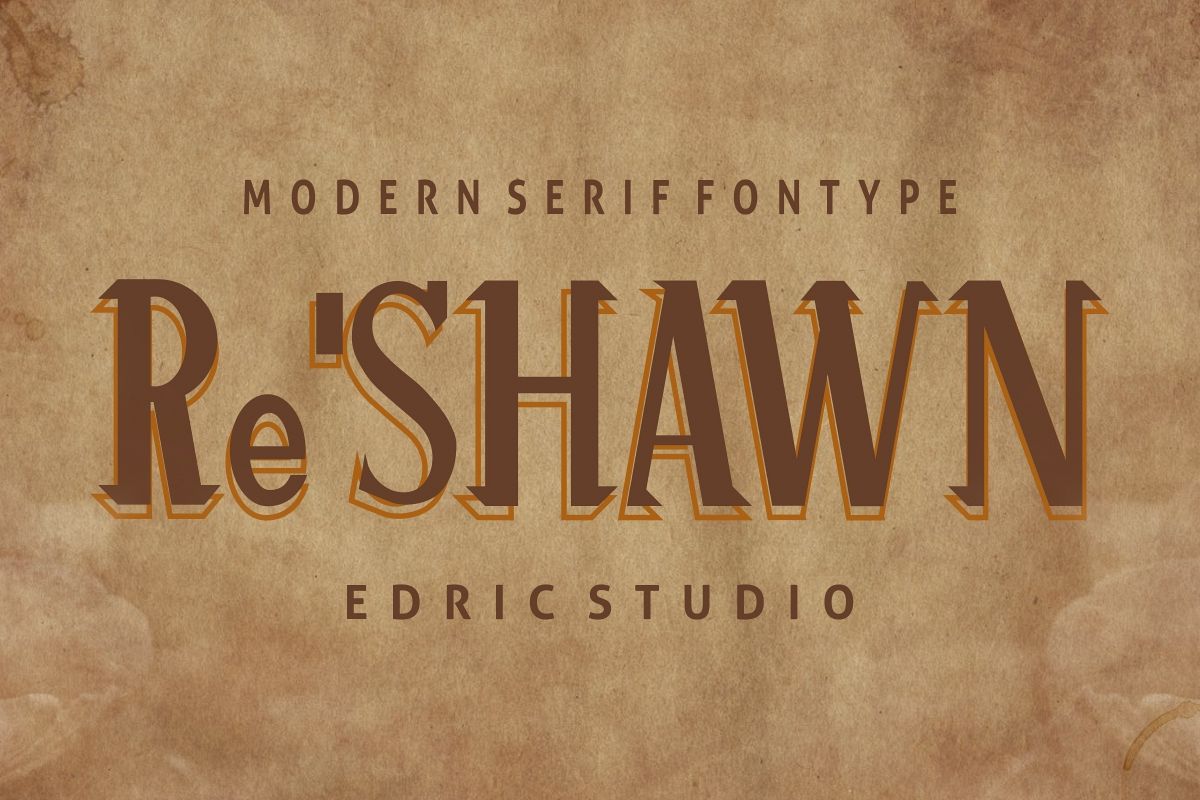
ReSHAWN
Re’shawn is a display decorative Vintage style font. It will be Great for branding, logo, stationery, business card, signage, flyer, brochure etc. There are many industries that is suitable for this font : construction, real estate, services, law firm etc